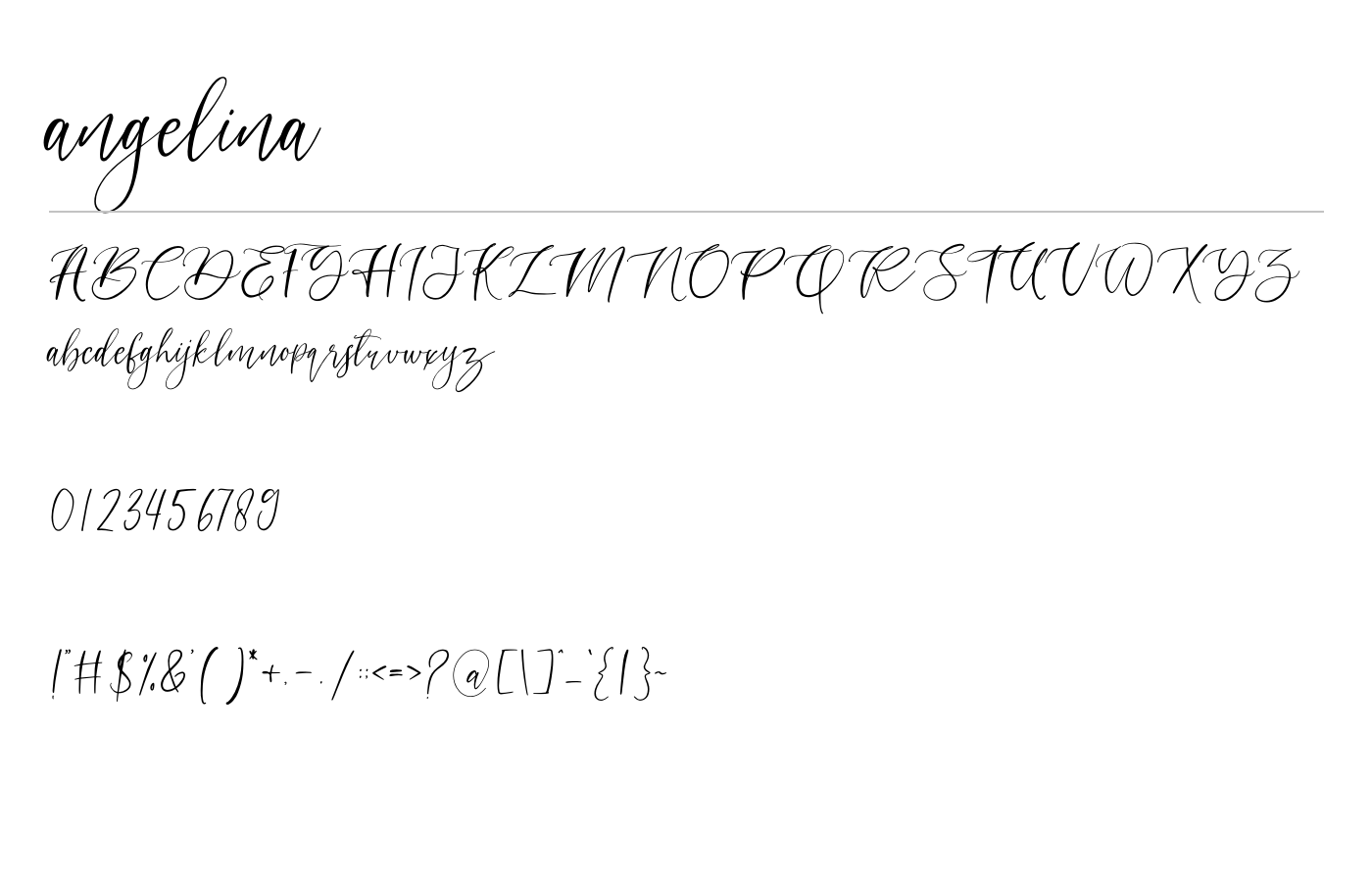
Angelina is an elegant, light-weight script font with delicate, flowing strokes that create a graceful and feminine look. Its thin, calligraphic style with high contrast and smooth curves makes it perfect for sophisticated branding, wedding invitations, and other designs that need a touch of refinement and charm. This font works best in headlines or decorative text where its airy beauty can truly shine.
angelina Font
About angelina Font
| Font family | angelina Font |
| Designer | Muhamad Fikry Nuralif |